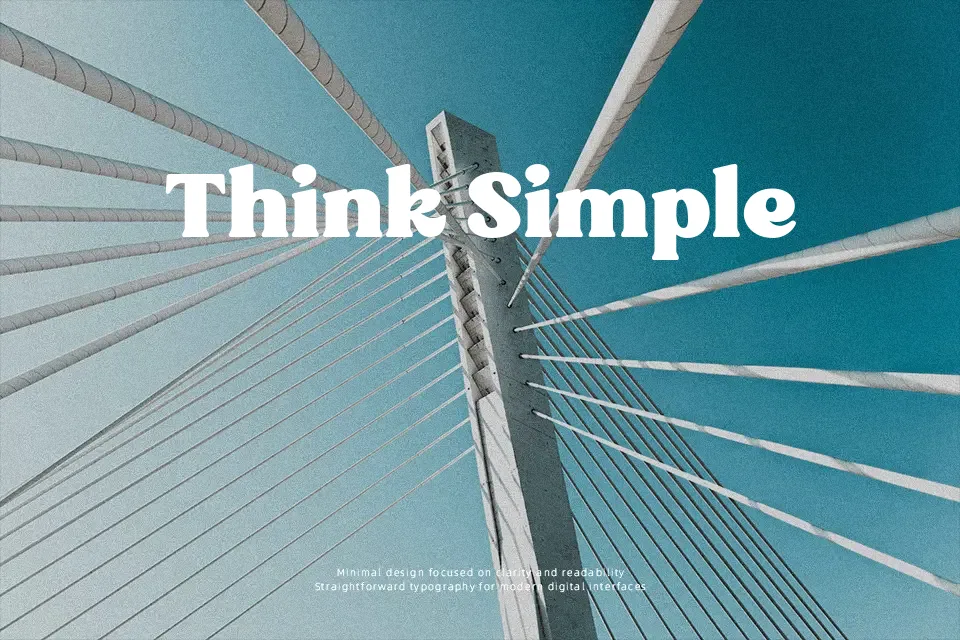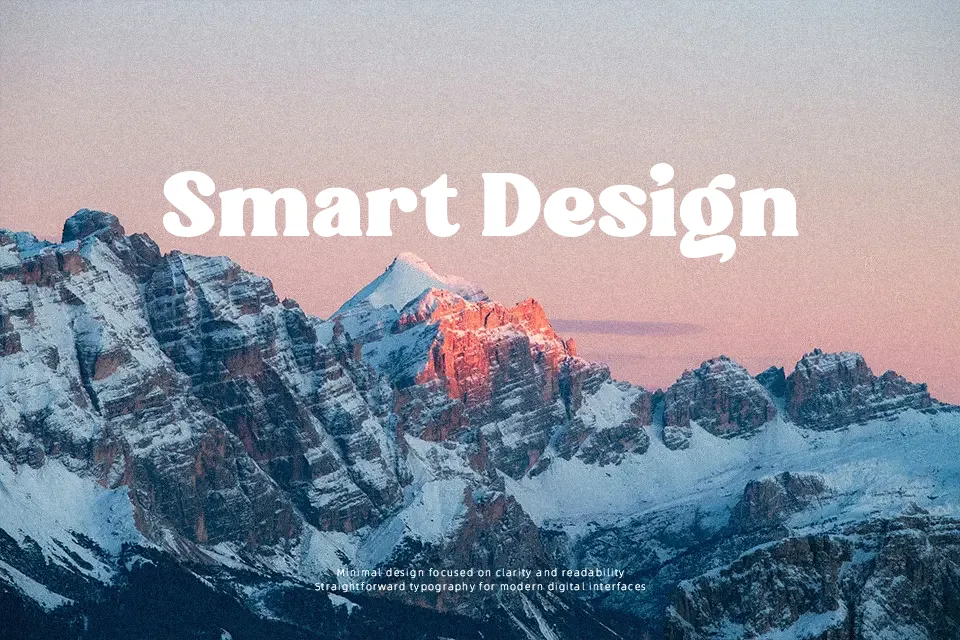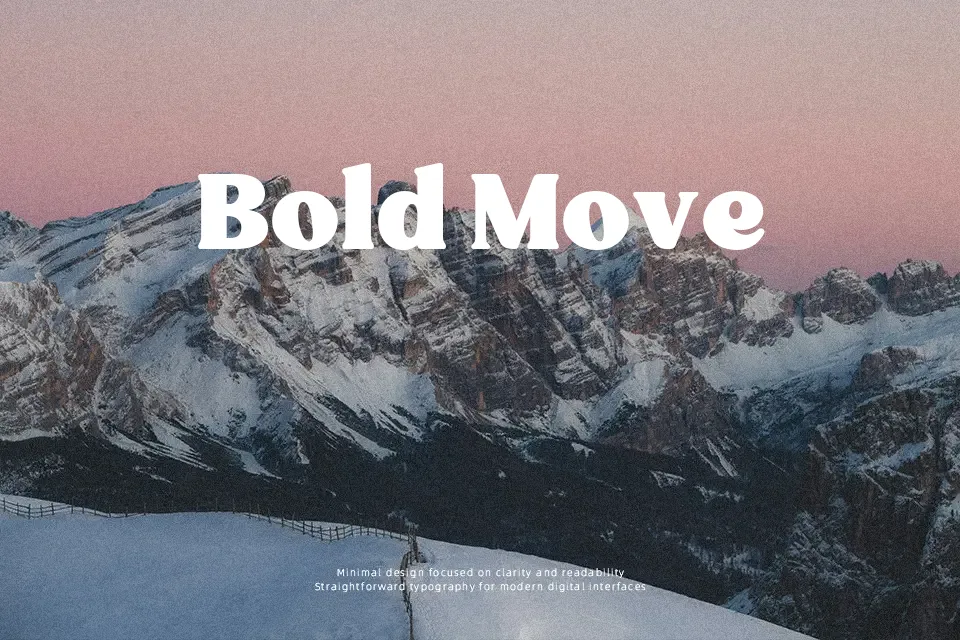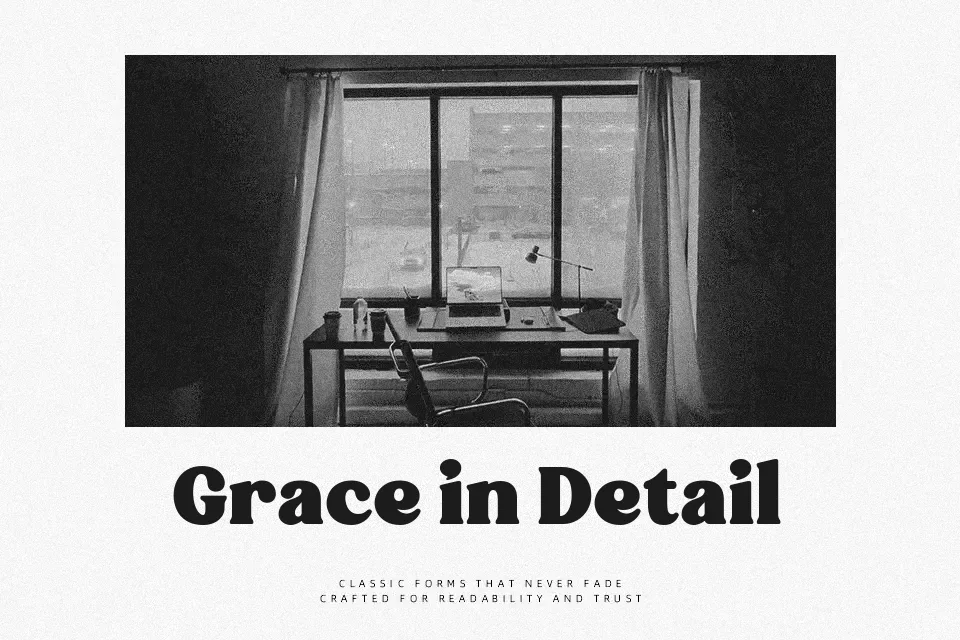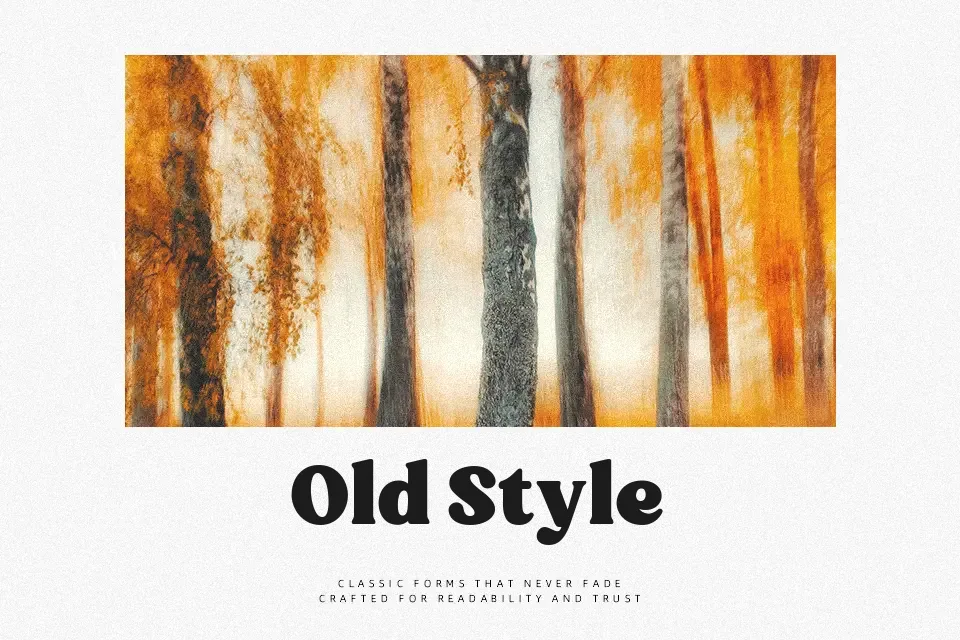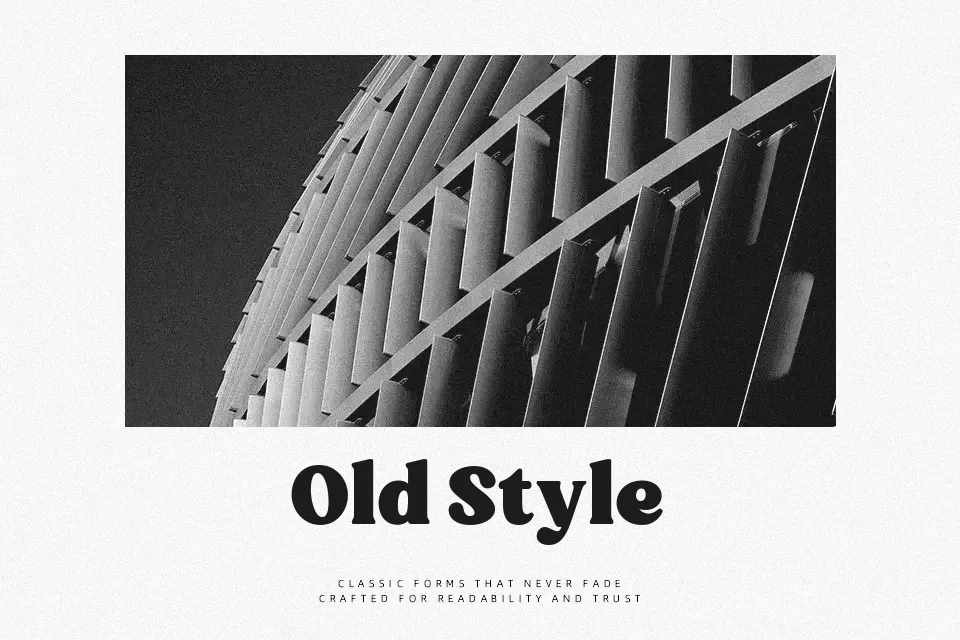
Broking Font
Broking is a heavy serif display font with chunky verticals, compact proportions, and lively curves that lean into a vintage yet trendy look. Its letters sit close together, which helps headlines feel dense and impactful rather than airy. Stylistically, it reads as decorative and retro, somewhere between fashion magazine mastheads and bold 80s album covers. It shines in large sizes where the swashes, alternates, and retro details can be appreciated, such as cover designs, thumbnails, and logotypes using simple shapes and strong color blocking. For long paragraphs or small UI elements, the weight and ornamentation can quickly feel tiring, so it makes more sense as a hero display face paired with a calmer text font.
Retro magazine covers and feature headlines,
Music artwork, banners, and YouTube thumbnails with bold color blocking,
Statement logotypes and wordmarks in fashion or lifestyle branding
Body text, articles, or reading-heavy layouts,
Small UI components or captions where legibility matters more than style,
Ultra-minimal brands that avoid decorative retro details